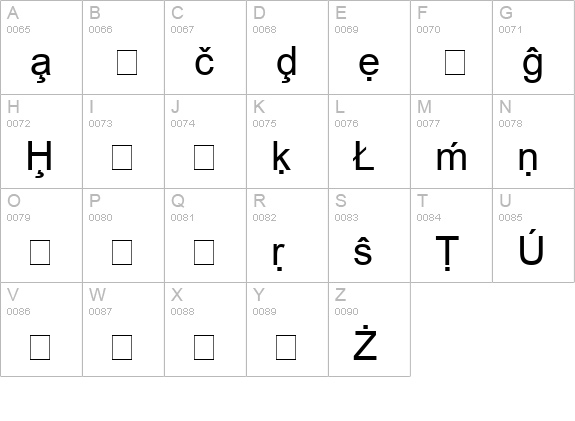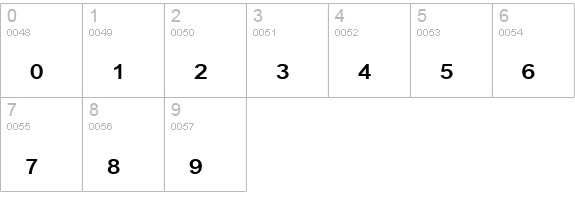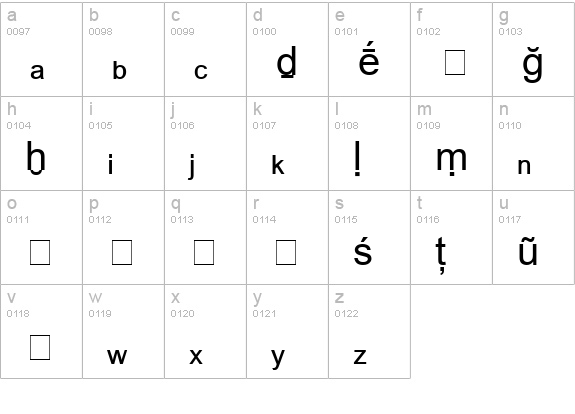
Bookshelf Symbol 2 font is a classic and elegant typeface that exudes sophistication and charm. With its unique and intricate design, this font is perfect for adding a touch of flair to any project. The Bookshelf Symbol 2 font is versatile and can be used for a variety of purposes, from branding to graphic design. Its sleek lines and modern aesthetic make it a standout choice for those looking to make a statement with their typography. The best part? Bookshelf Symbol 2 font is available for free download at FontsMarket.com. This means you can easily access this stunning font and incorporate it into your projects without any cost. Don't miss out on the opportunity to enhance your designs with the timeless elegance of Bookshelf Symbol 2 font. Download it today and elevate your creative work to new heights.